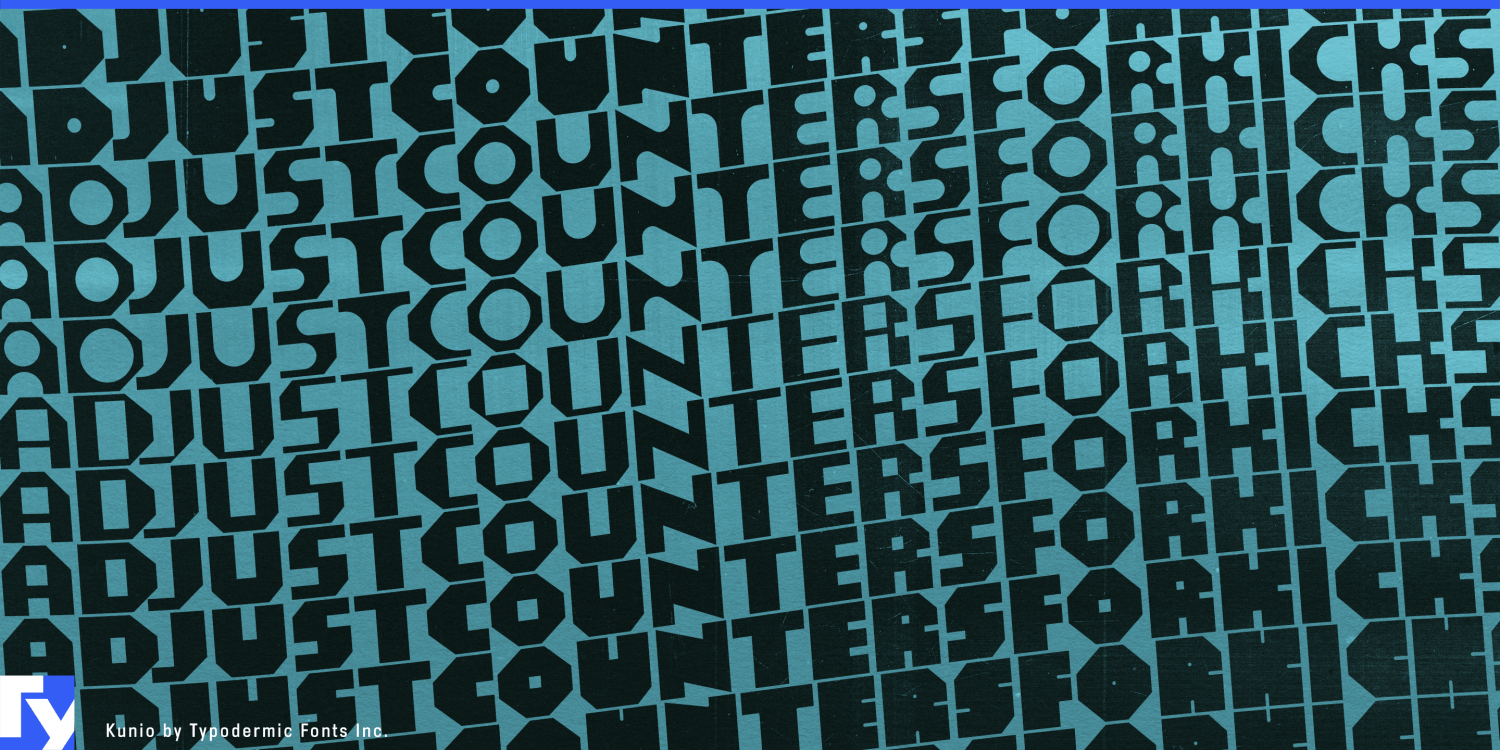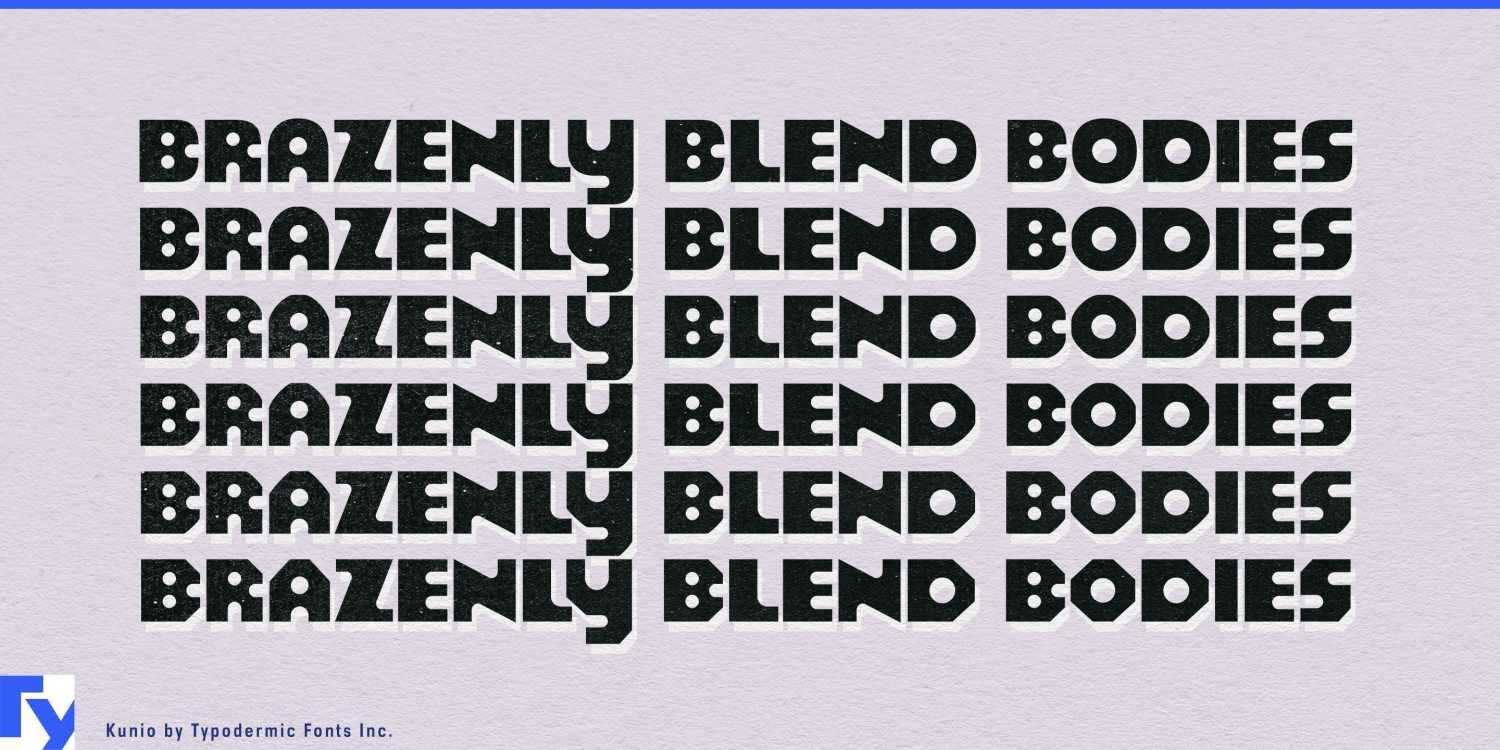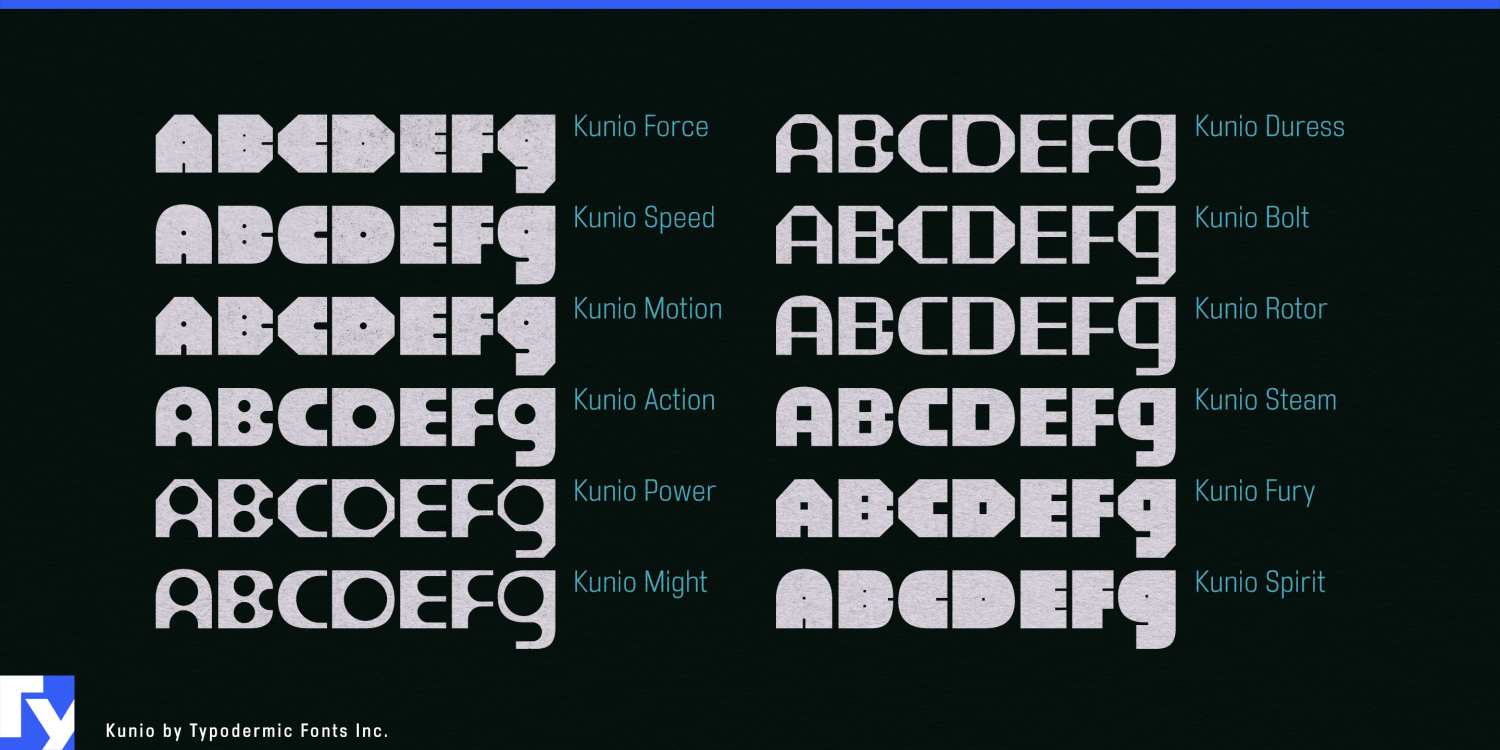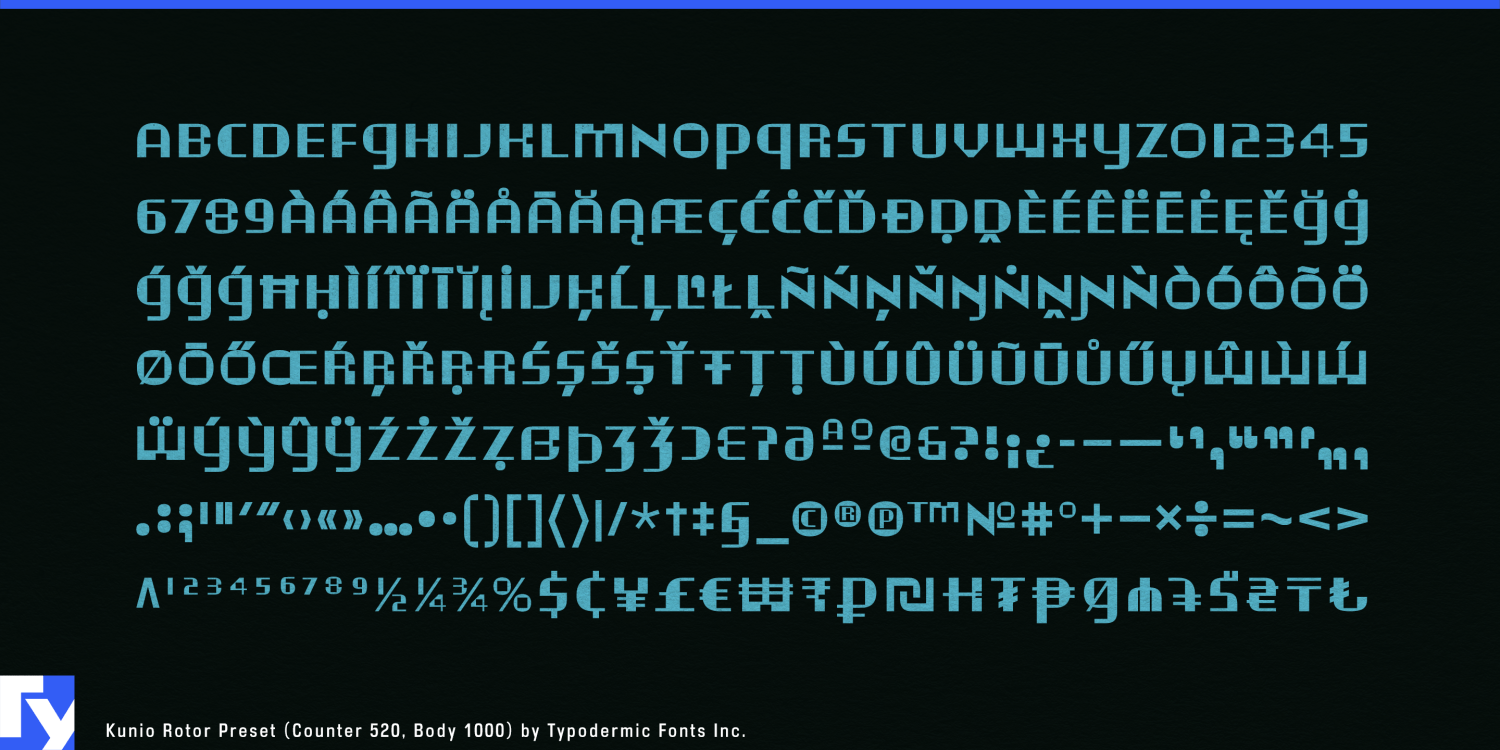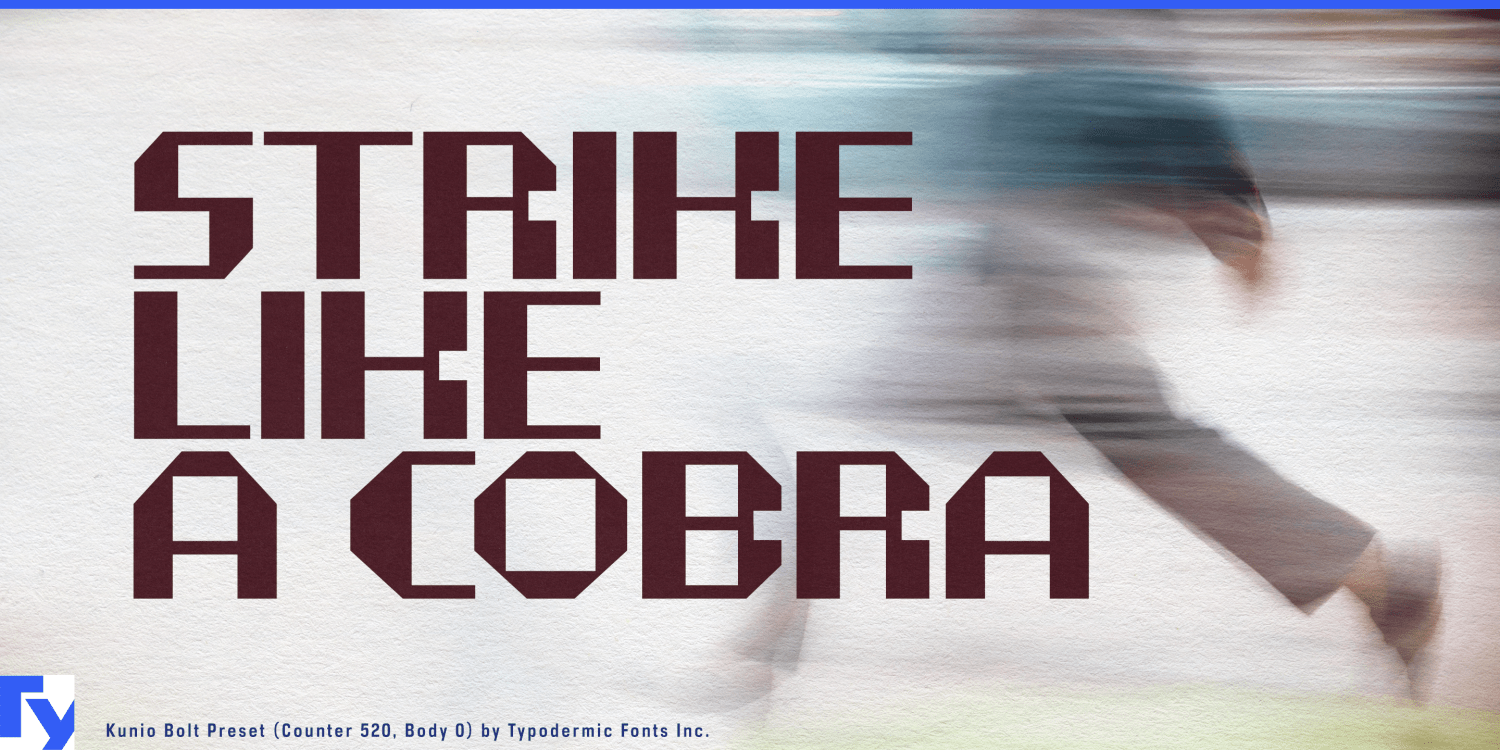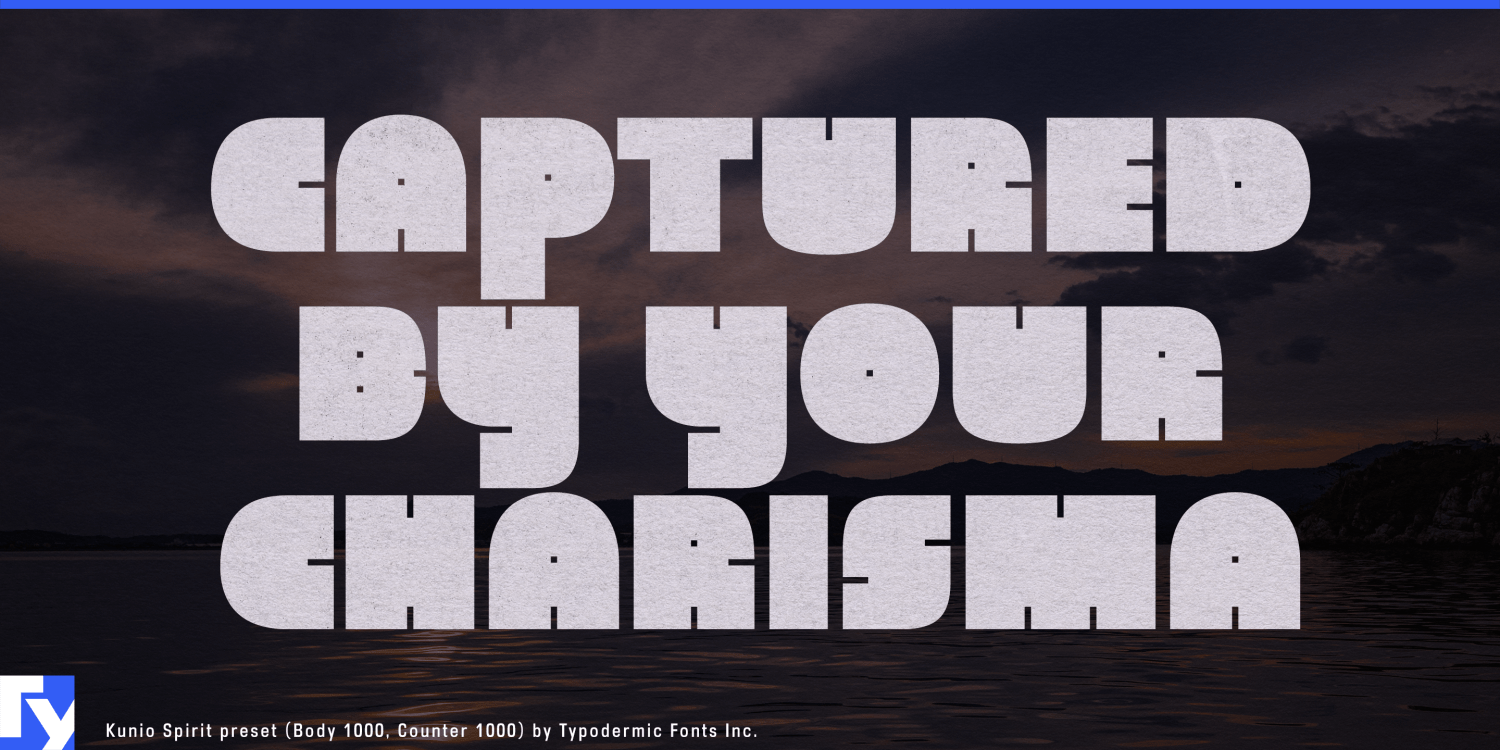
About Kunio Variable
Step into the Kunio universe—where Art Deco meets cutting-edge typography in a dazzling dance of form and function. This isn’t just a font; it’s a shape-shifting chameleon, a typographic time machine that catapults the glamour of the…